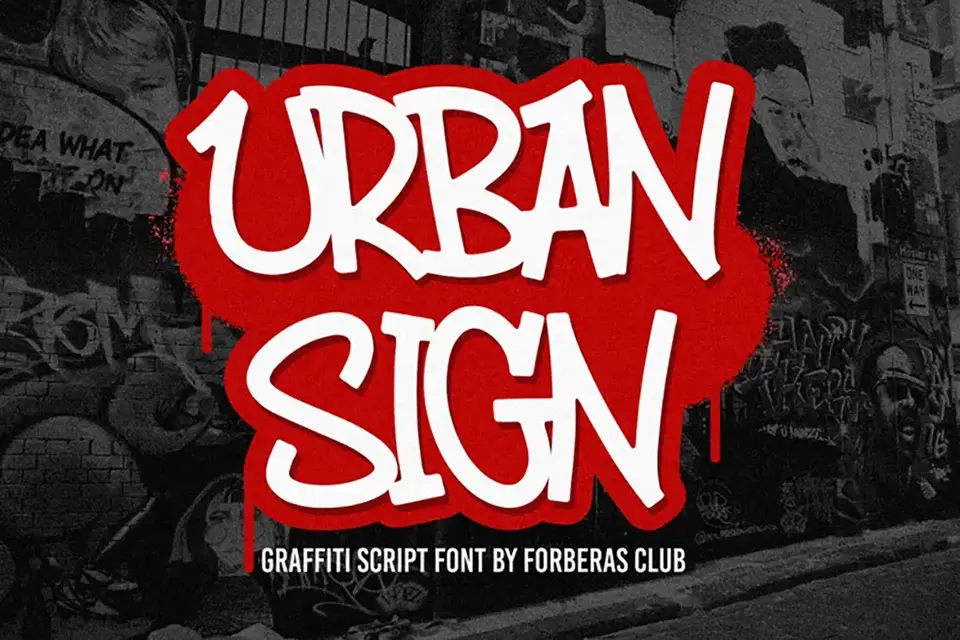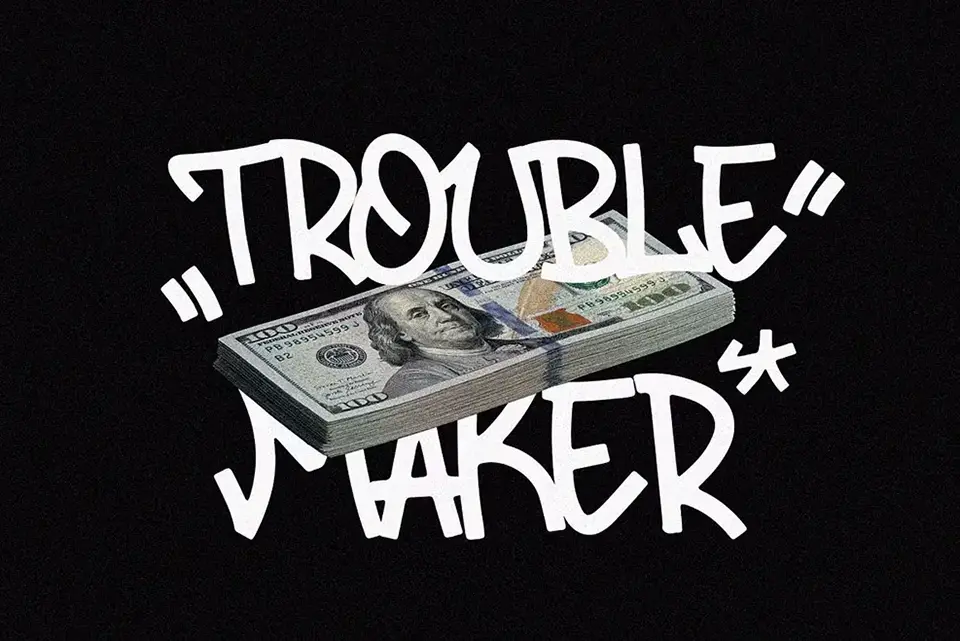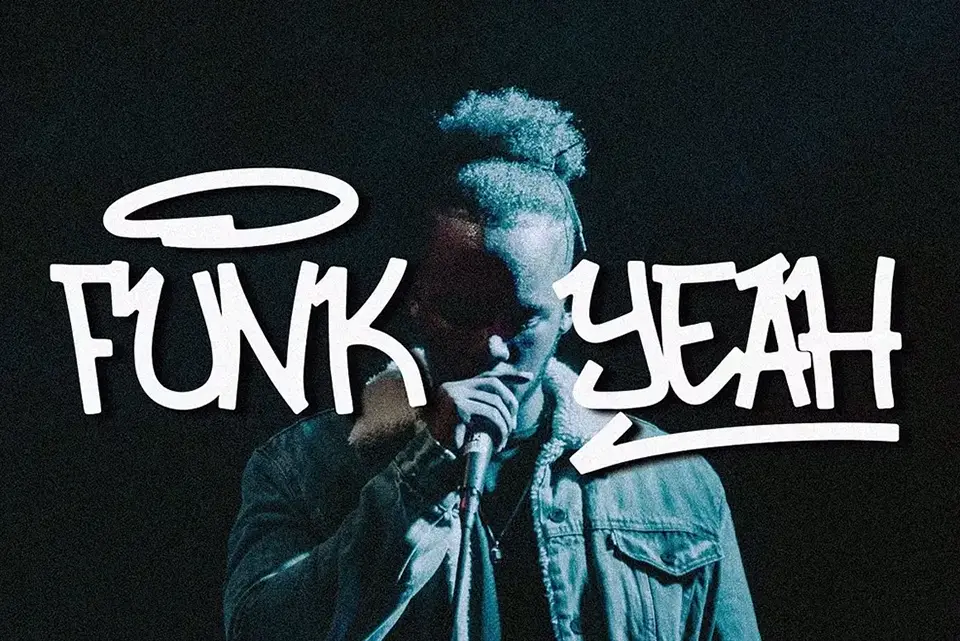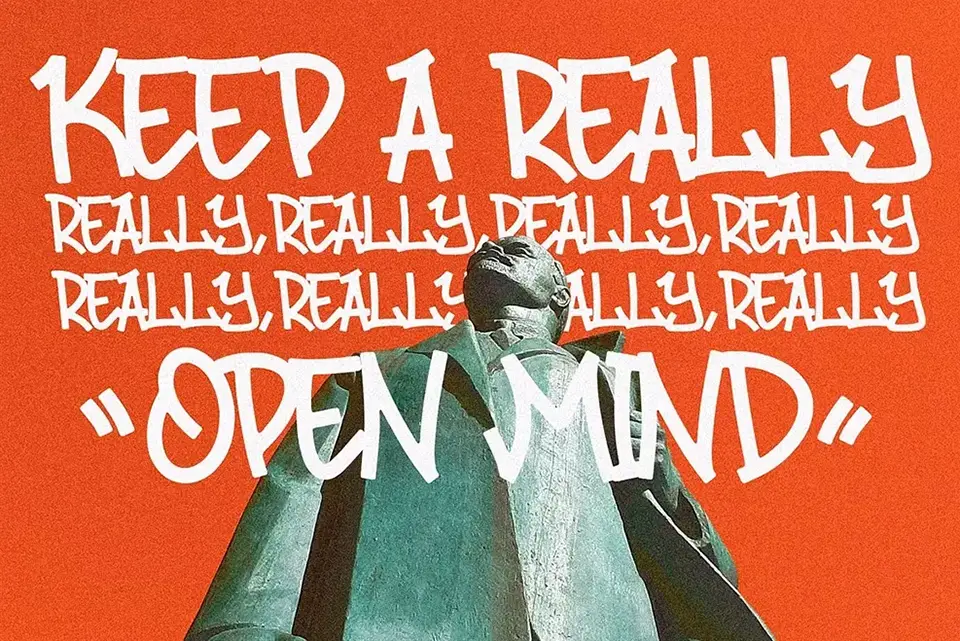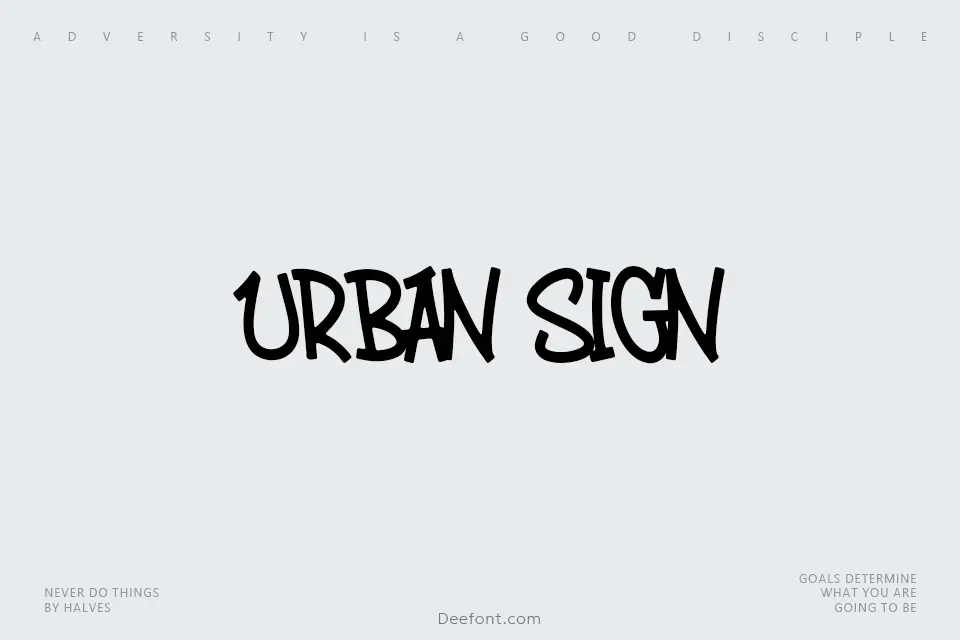
Urban Sign Font
Urban Sign is a dynamic graffiti-inspired display font created by Forberas Club that brings contemporary street art aesthetics to your creative projects. With its energetic and fluid letterforms, this typeface captures the essence of urban visual culture while maintaining excellent readability for various applications. Perfect for poster designs, event flyers, magazine titles, book covers, social media content, signage, and album artwork, the font delivers bold, modern impact through its distinctive graffiti-influenced character set. The 243 available glyphs ensure comprehensive character support for diverse design needs.